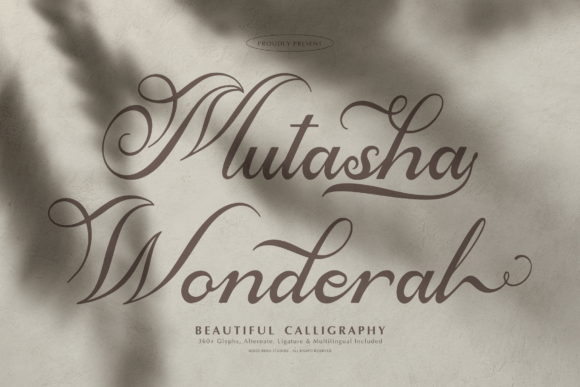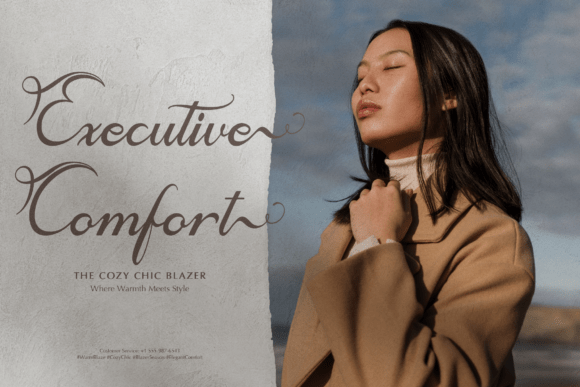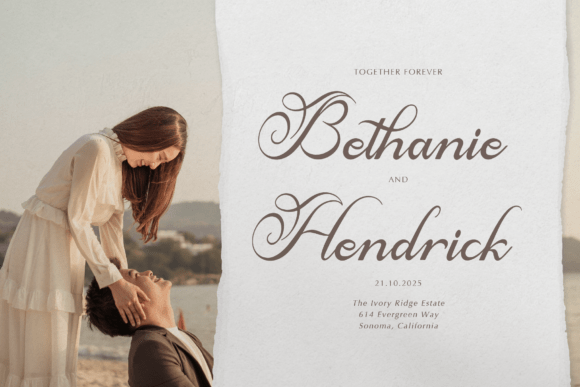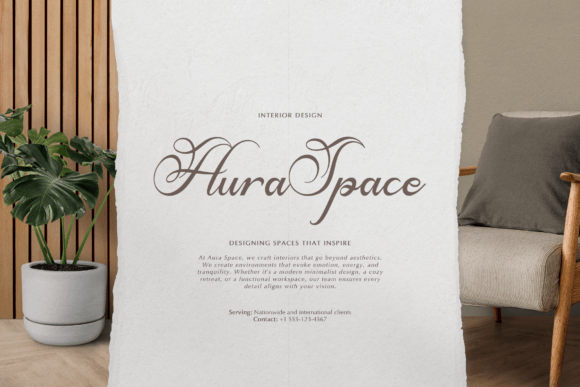
Mutasha Wonderal Font
About the Mutasha Wonderal Font
Welcome to the world of Mutasha Wonderal Font, a typeface that will inspire your next great project. Mutasha Wonderal is a luxurious and expressive calligraphy font that exudes timeless elegance and graceful charm. With sweeping swashes, delicate ligatures, and over 360 glyphs, this font is perfect for high-end branding, wedding stationery, feminine logos, and sophisticated packaging. Its refined script style combines fluid motion with precise detail, delivering both classic beauty and modern usability. Multilingual support and alternates give you creative freedom to personalize every word with flourish and flair.
Mutasha Wonderal Font Usage Examples
Mutasha Wonderal Font Example